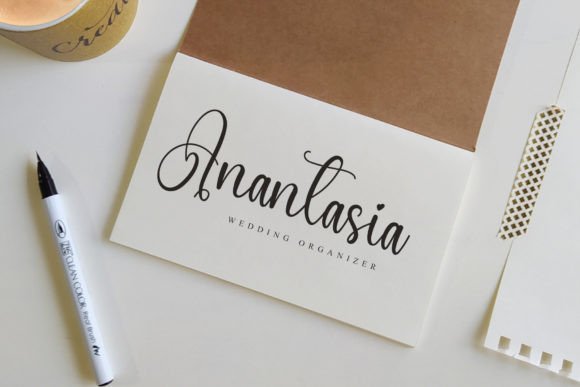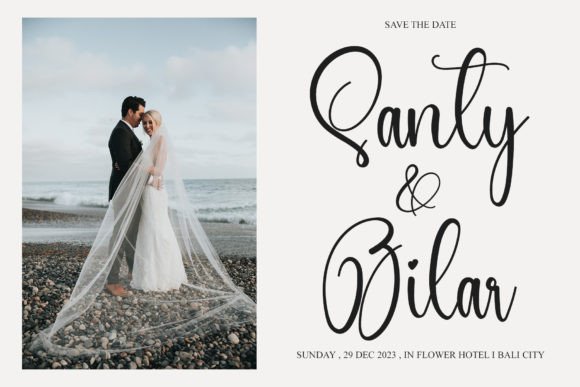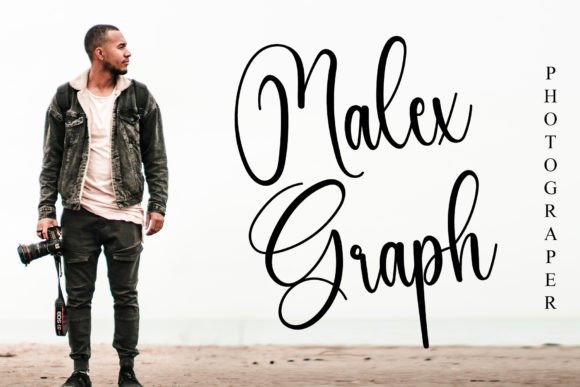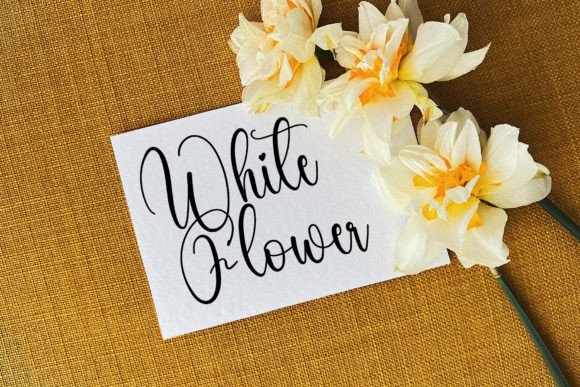
Auntie Font: Adding a Playful Touch to Your Designs
Are you looking for a font that can add a playful and handmade touch to your designs? Look no further than Auntie Font! This script font is designed to bring a sense of whimsy and fun to any project, making it perfect for designers and crafters who want to add a personal touch to their work.
What is Auntie Font?
Auntie Font is a beautifully crafted script font that feels playfully handmade. It’s the perfect choice for anyone who wants to add a touch of personality to their designs. With its unique and playful lettering, Auntie Font is sure to make your projects stand out from the crowd.
Features of Auntie Font
Auntie Font has a number of features that make it a great choice for designers and crafters. Some of its key features include:
- Playful and handmade feel: Auntie Font has a unique, handmade feel that’s perfect for adding a personal touch to your designs.
- Script font style: This font is a script font, which means it’s perfect for adding a touch of elegance and sophistication to your projects.
- Highly versatile: Auntie Font can be used for a wide range of projects, from invitations and greeting cards to posters and social media graphics.
- Easy to read: Despite its playful feel, Auntie Font is easy to read, making it perfect for use in both digital and print projects.
How to Use Auntie Font
Auntie Font is incredibly easy to use, and can be incorporated into your designs in just a few simple steps. Here are a few ways you can use Auntie Font:
- Invitations and greeting cards: Add a personal touch to your invitations and greeting cards with Auntie Font.
- Social media graphics: Use Auntie Font to add a playful touch to your social media graphics, such as Instagram posts and Facebook updates.
- Posters and flyers: Auntie Font is perfect for use in posters and flyers, where its playful feel can help grab attention.
- Branding and packaging: Use Auntie Font to add a personal touch to your branding and packaging, such as labels and product tags.
Why Choose Auntie Font?
There are many reasons why you might choose Auntie Font for your next project. Here are just a few:
- Unique and playful feel: Auntie Font has a unique and playful feel that’s sure to make your projects stand out.
- High-quality design: Auntie Font is masterfully designed to deliver high-quality results, even at small sizes.
- Easy to use: Auntie Font is incredibly easy to use, and can be incorporated into your designs in just a few simple steps.
- Versatile: Auntie Font can be used for a wide range of projects, from invitations and greeting cards to posters and social media graphics.
Tips for Getting the Most Out of Auntie Font
Here are a few tips for getting the most out of Auntie Font:
- Experiment with different colors: Auntie Font looks great in a wide range of colors, so don’t be afraid to experiment and find the perfect hue for your project.
- Use it with other fonts: Auntie Font pairs well with a wide range of other fonts, so try combining it with other fonts to create a unique look.
- Pay attention to spacing: Make sure to pay attention to the spacing between letters and words, as this can affect the overall look and feel of your project.
Auntie Font is a beautifully crafted script font that’s perfect for adding a playful and handmade touch to your designs. With its unique and playful lettering, Auntie Font is sure to make your projects stand out from the crowd. Whether you’re a designer or crafter, Auntie Font is a great choice for anyone who wants to add a personal touch to their work. So why not give it a try and see the difference it can make?